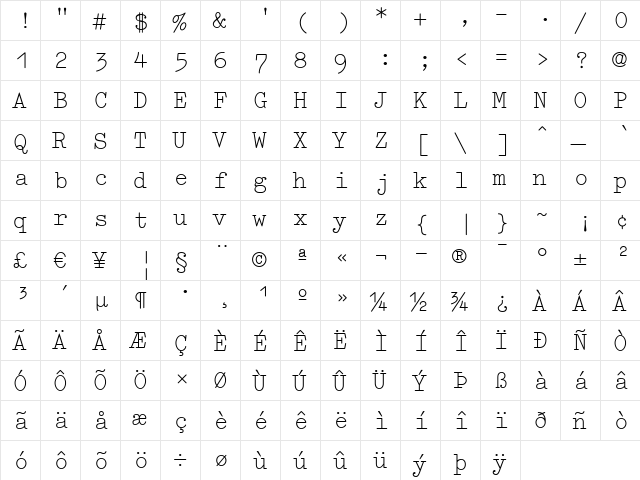
Elementa Medium Font Preview
Elementa Medium
Elementa Medium Font Details
Design Context for Elementa Typeface
Elementa offers clean, dependable letterforms without strong stylistic allegiance, making it a practical choice for designers who need flexibility.